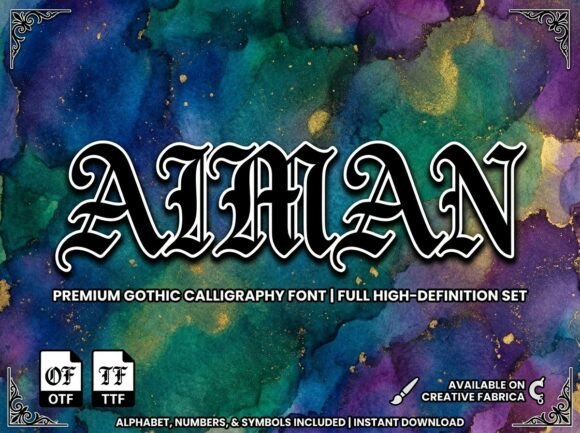
The Power of Aiman Font: Unleashing Majestic Gothic Calligraphy
I’ll never forget the design project that led me to discover Aiman Font. I was working on a dark fantasy book cover, and my client wanted a title that would evoke a sense of strength, mystery, and ancient power. I scoured font libraries, but nothing seemed to fit the bill. That was until I stumbled upon Aiman – a premium gothic calligraphy font that instantly captured the essence of the story. In this article, I’ll share my experience with Aiman, its features, and how to make the most of this stunning typeface.
An Honest Review of Aiman Font
What I Love About Aiman ✨
- 💥 High-impact visual presence: Aiman’s bold, high-contrast letterforms demand attention and convey a sense of power.
- 🔍 Intricate details: The font’s blackletter-inspired flourishes and sharp, chiseled terminals add an air of sophistication and elegance.
- 📚 Versatility: Aiman is perfect for various design projects, from book titles and branding to logos and cinematic headers.
- 👍 Easy to read: Despite its bold and ornate design, Aiman remains surprisingly legible, even at smaller font sizes.
- ⚠️ Limited use in body text: Aiman’s bold and ornate design makes it better suited for headlines and titles rather than body text.
- 🤔 Requires careful kerning: As with any font, kerning is crucial to ensure Aiman looks its best, especially when using larger font sizes.
- Experiment with OpenType features, such as stylistic alternates and glyphs, to add more character to your design.
- Explore the font’s OpenType features, such as ligatures and stylistic sets, to add more depth to your design.
The Backstory of Aiman Font
Aiman Font was designed with the intention of capturing the essence of medieval gothic calligraphy. The font’s creator drew inspiration from ancient manuscripts, blackletter scripts, and ornate stone carvings. The result is a typeface that exudes strength, mystery, and historical prestige.
| Font Name | Aiman Font |
| Author | Creativeguru |
| What is Aiman Font best suited for? | Aiman Font is perfect for high-impact visual storytelling, dark fantasy book titles, heavy metal branding, edgy streetwear logos, and atmospheric cinematic headers. |
| Is Aiman Font difficult to read? | No, despite its bold and ornate design, Aiman remains surprisingly legible, even at smaller font sizes. |
| Can I use Aiman Font for body text? | While Aiman can be used for body text, it’s better suited for headlines and titles due to its bold and ornate design. |
| Does Aiman Font support OpenType features? | Yes, Aiman Font supports OpenType features, including stylistic alternates, glyphs, and ligatures. |